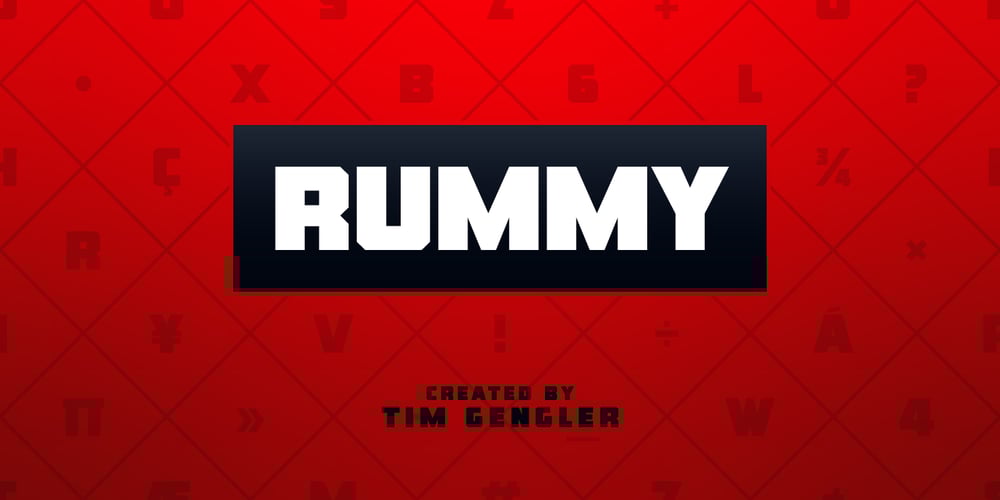
Rummy Font Family was designed by Tim Gengler and published by Bunny Dojo. Rummy contains 5 styles and family package options. Rummy is powerful, precise, and packed with personality. Simple and initially unassuming, Rummy may seem a reluctant hero. But, when called upon, Rummy will lend you all of its considerable strength and versatility in order to win the day. Influenced by sports branding and 1940s film, Rummy is an underdog that won’t let you down. Need more height? Try Rummy Tall!